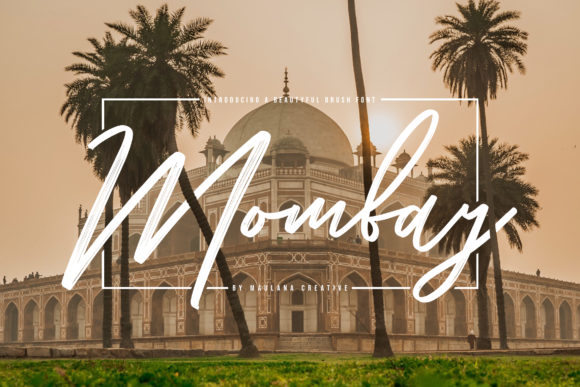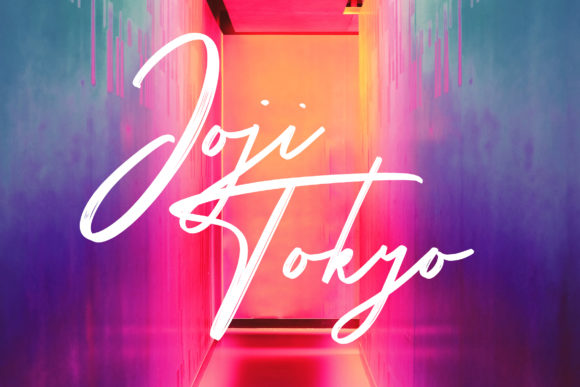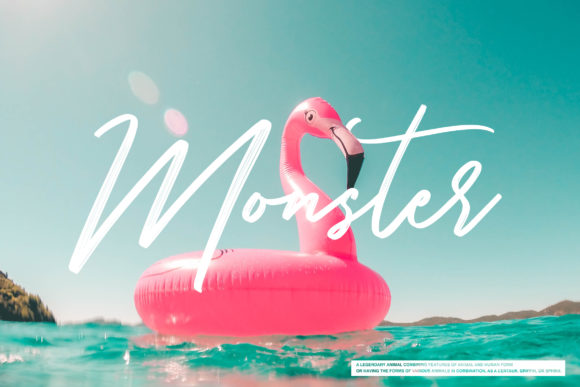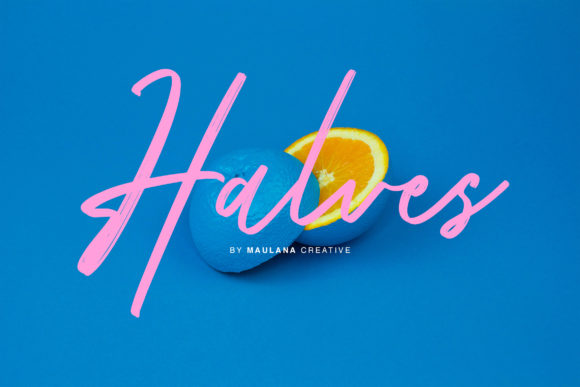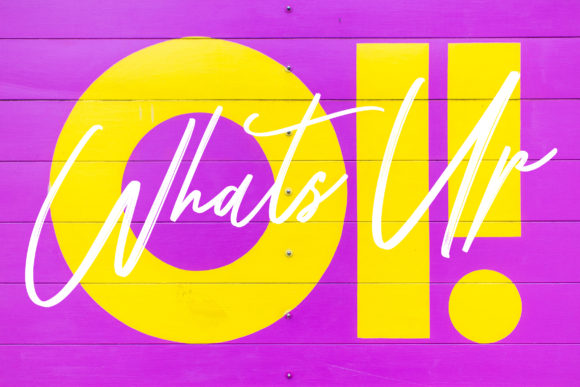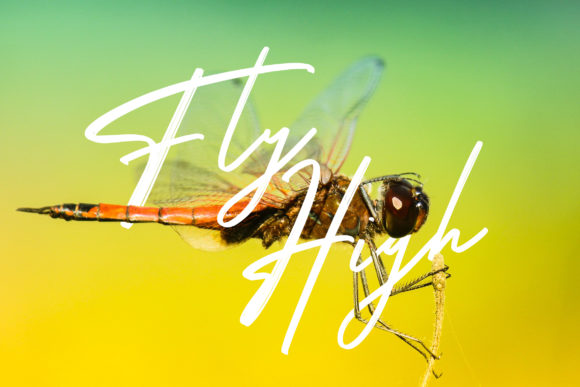
HomeScript FontsMombay Font Script Fonts Mombay Font FacebookXPinterestWhatsApp Mombay Font Poster 2 Mombay Font Poster 3 Mombay Font Poster 4 Mombay Font Poster 5 Mombay Font Poster 6 About Mombay Font Mombay is the perfect brush font for adding an undeniably charming feel to any design idea! DOWNLOAD ON CREATIVE FABRICAThis font is sold and delivered by Creative Fabrica. Font Canyon may earn a commission if you buy through this link. People also explored Loona Font Delicko Font Raynam Sonary Font Blondeta Font Barbie Font Study Font Monterai Font Dear Emily Font Morning Teacher Font 369 0 TagsMombay Font Previous articleAmberla Duo FontNext articleRoserina Jaxolyn Font LEAVE A REPLY Cancel reply Comment: Please enter your comment! Name:* Please enter your name here Email:* You have entered an incorrect email address! Please enter your email address here Website: Save my name, email, and website in this browser for the next time I comment. Personal Use Free Aldenburg Personal Use Free Read more about this font Bukhari Script Personal Use Free Read more about this font Artisan Signature Personal Use Free Read more about this font BD RatterBit Personal Use Free Read more about this font BLOG How to Cut Any Font on Cricut: Convert a Font to SVG (Free) Turn any font into a clean SVG so it cuts crisp on Cricut - a quick 3-step workflow using a free font-to-SVG tool. Best Fonts for YouTube Videos: Make Your Thumbnails Stand Out Exploring Font Trends 5 Fonts That Will Dominate Design Trends in 2026